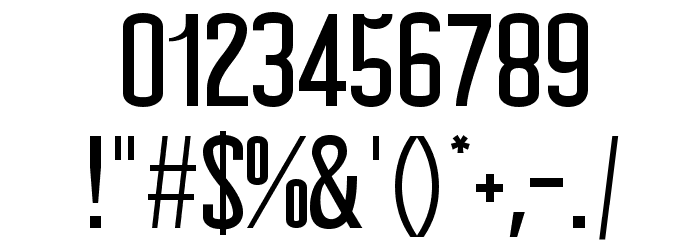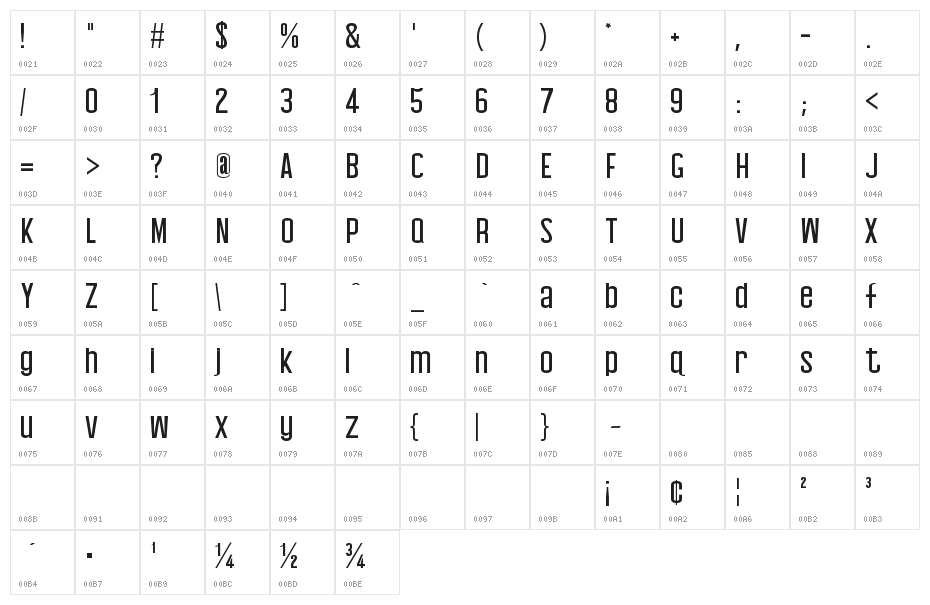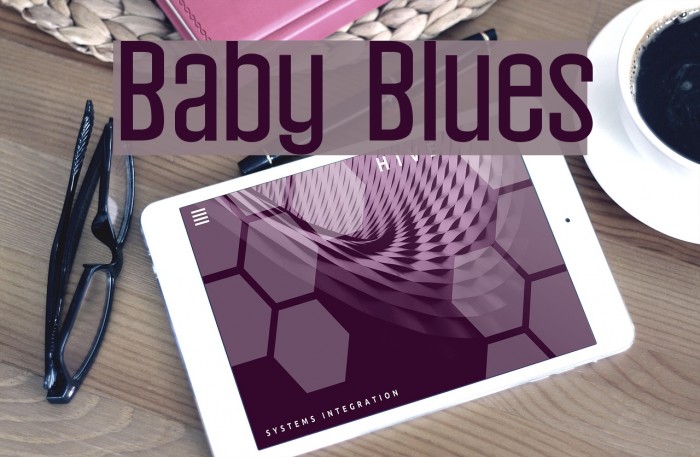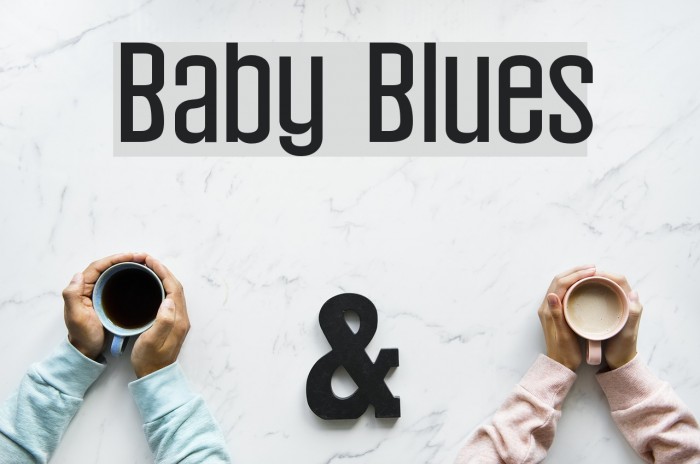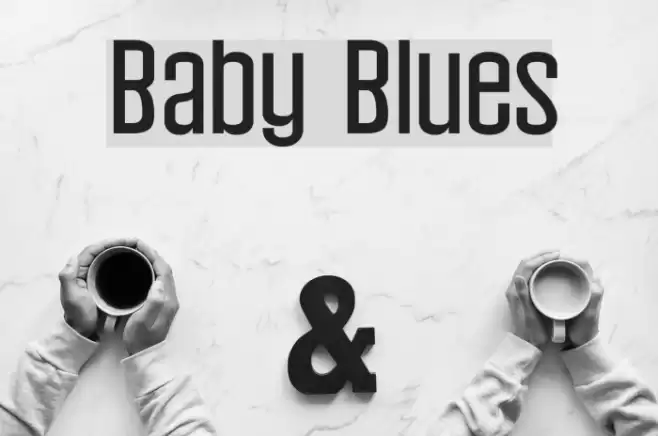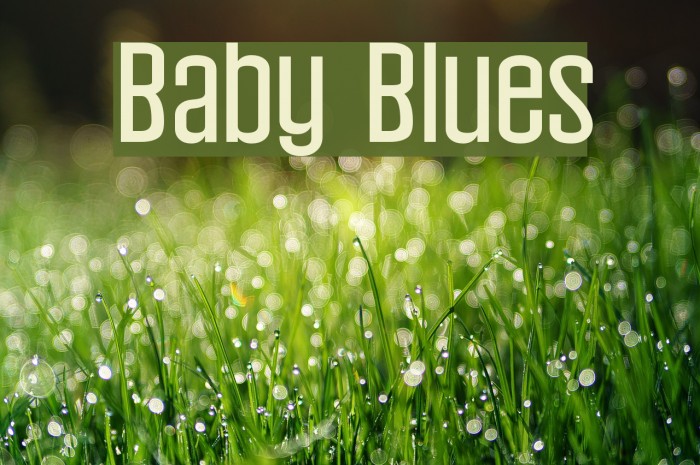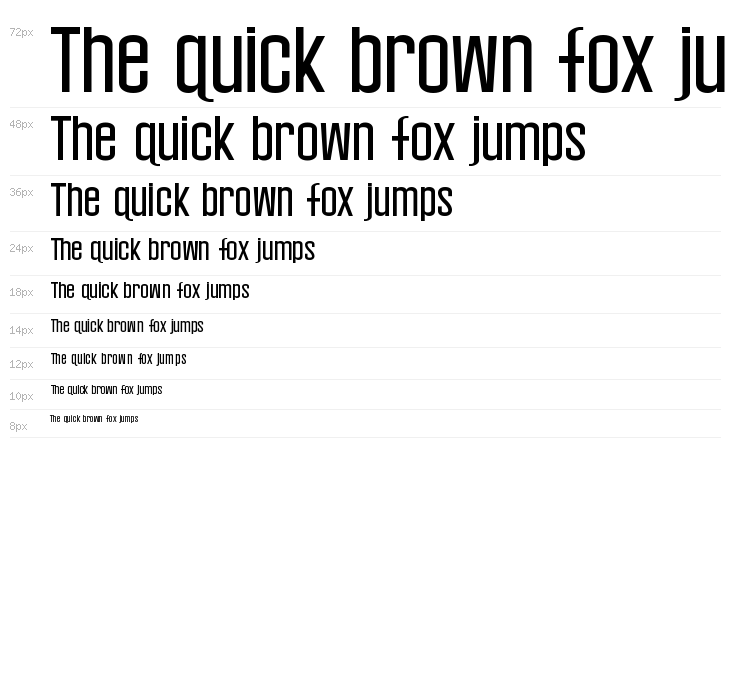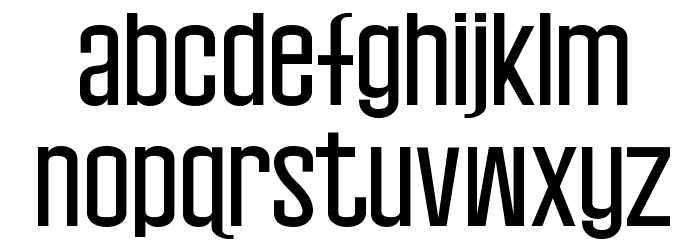
Baby Blues Font
Baby Blues Description
This font features a clean and modern sans-serif style, characterized by its tall, narrow letterforms and consistent stroke width. The uppercase letters are bold and commanding, while the lowercase letters maintain a uniform height, contributing to a cohesive appearance. The numerals are clear and legible, matching the overall aesthetic of the alphabet. Special characters are designed with the same attention to detail, ensuring versatility across various applications. The font's geometric precision and minimalistic design make it suitable for contemporary projects.
| Use Case | Headlines, Logos, Digital Interfaces |
| Proposed Projects | Ideal for branding, advertising, headlines, and digital interfaces where a modern and clean look is desired. |